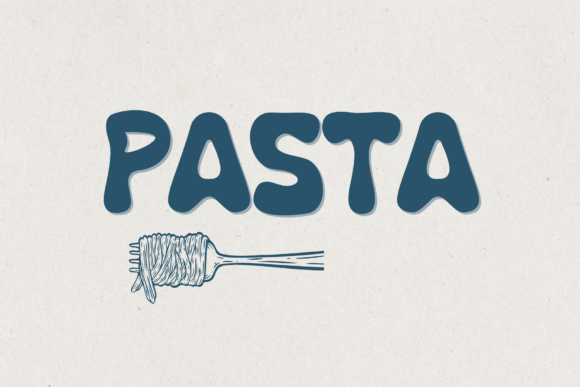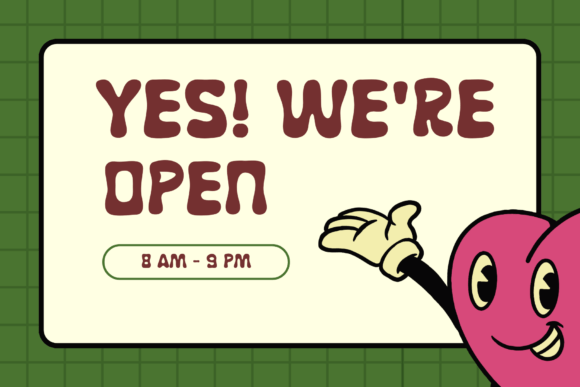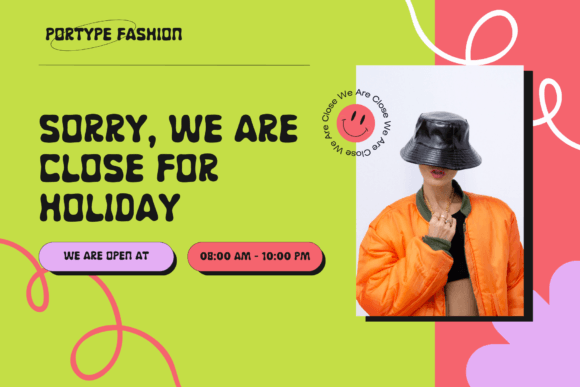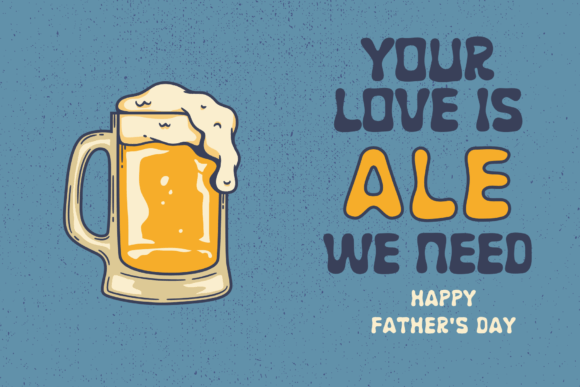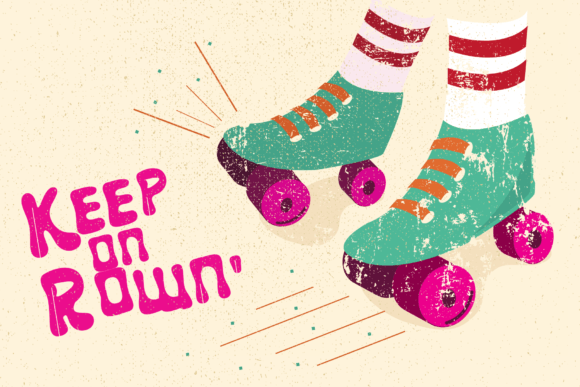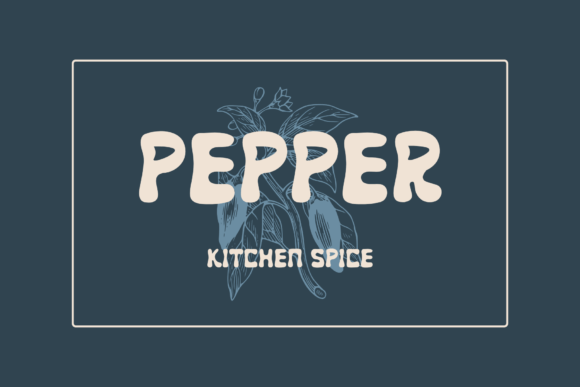
Introducing Bohlam Font: The Perfect Blend of Vintage Charm and Retro Aesthetics
In the world of typography, a well-crafted font can elevate a design from ordinary to extraordinary. For designers and crafters looking for a typeface that seamlessly merges vintage charm with retro aesthetics, look no further than Bohlam Font. This meticulously crafted typeface exudes a nostalgic appeal, perfect for a wide array of design needs. Whether you’re working on branding, packaging, posters, or social media graphics, Bohlam’s unique character and versatile style make it an ideal choice.
The Inspiration Behind Bohlam Font
Bohlam Font draws inspiration from the classic typefaces of the past, with a modern twist. Its design is rooted in the principles of traditional typography, with careful attention to detail and a focus on legibility. The result is a font that feels both nostalgic and contemporary, making it perfect for designers looking to add a touch of vintage flair to their work.
Key Features of Bohlam Font
- Unique Character: Bohlam Font boasts a distinctive character that sets it apart from other typefaces. Its elegant lines, subtle curves, and carefully crafted letterforms make it a standout choice for any design project.
- Versatile Style: Bohlam Font is designed to be versatile, making it suitable for a wide range of design applications. Whether you’re working on a logo, brochure, or social media graphic, Bohlam Font adapts effortlessly to any style or theme.
- Legibility: One of the key features of Bohlam Font is its exceptional legibility. The font is designed to be clear and easy to read, making it perfect for body text, headings, and titles.
- Vintage Charm: Bohlam Font’s vintage charm is undeniable. Its classic lines and nostalgic appeal make it perfect for designers looking to add a touch of retro flair to their work.
Design Applications for Bohlam Font
Bohlam Font is a versatile typeface that can be used in a wide range of design applications. Here are some ideas to get you started:
- Branding: Use Bohlam Font to create a unique and memorable brand identity. Its distinctive character and vintage charm make it perfect for logos, business cards, and letterheads.
- Packaging: Add a touch of elegance to your packaging designs with Bohlam Font. Its legibility and versatility make it suitable for labels, product packaging, and instruction manuals.
- Posters: Create eye-catching posters with Bohlam Font. Its bold lines and classic style make it perfect for headings, titles, and body text.
- Social Media Graphics: Use Bohlam Font to create engaging social media graphics. Its unique character and nostalgic appeal make it perfect for Facebook posts, Instagram stories, and Twitter headers.
Bohlam Font is a unique and versatile typeface that seamlessly merges vintage charm with retro aesthetics. Its distinctive character, legibility, and nostalgic appeal make it perfect for a wide range of design needs. Whether you’re working on branding, packaging, posters, or social media graphics, Bohlam Font is an ideal choice. With its carefully crafted design and attention to detail, Bohlam Font is sure to elevate your designs to the next level.